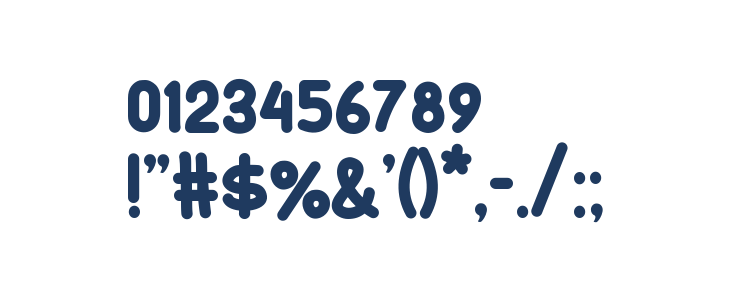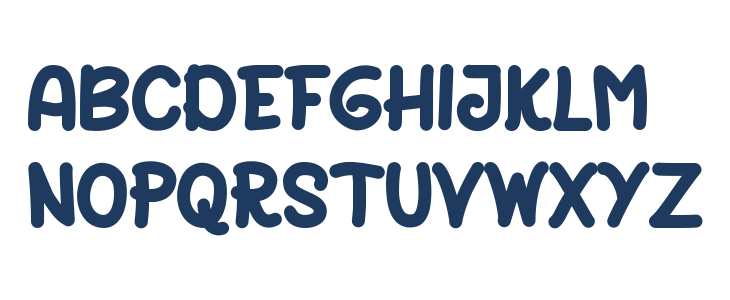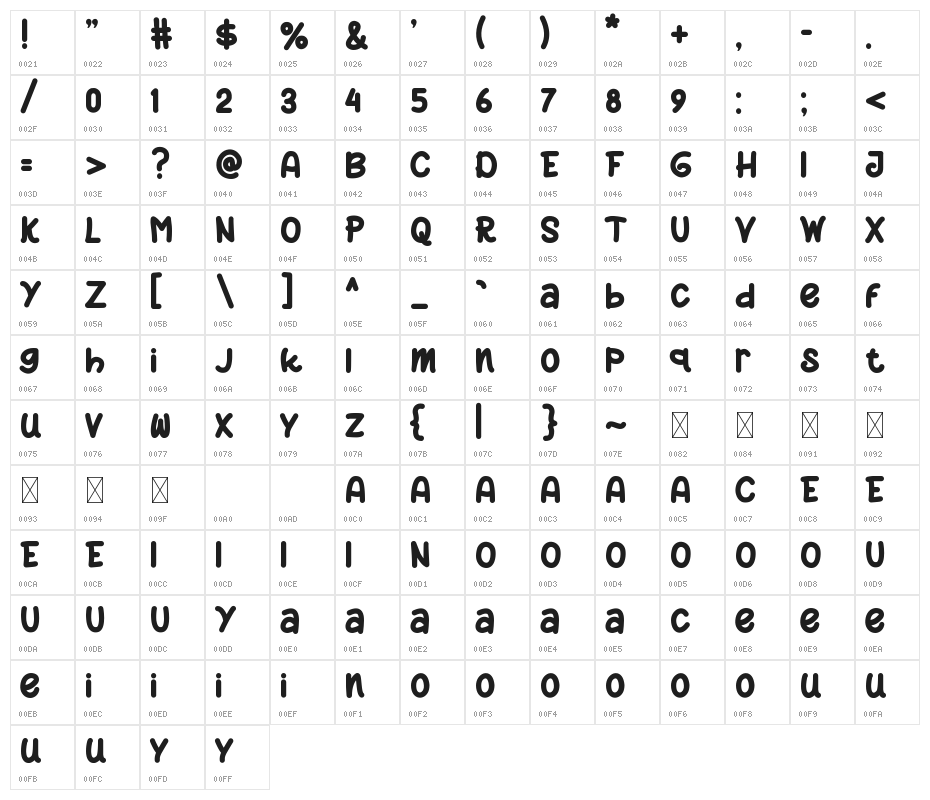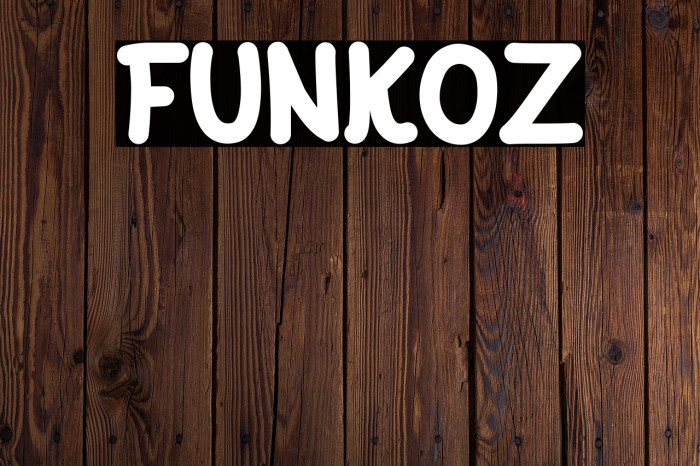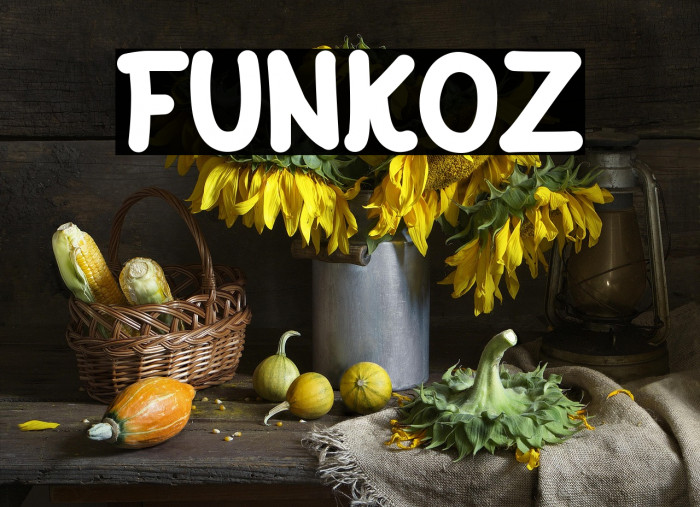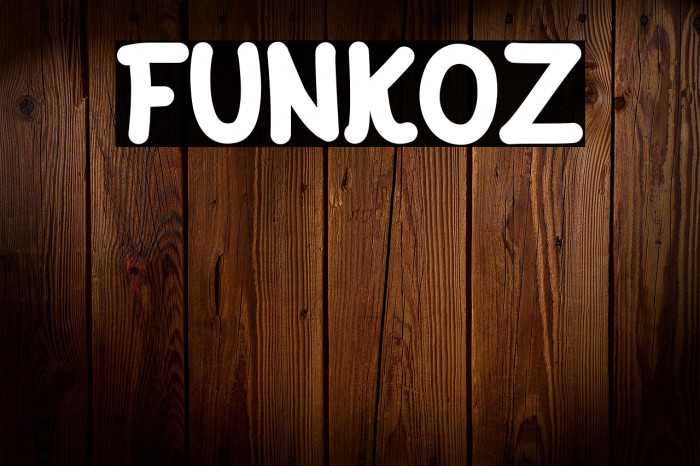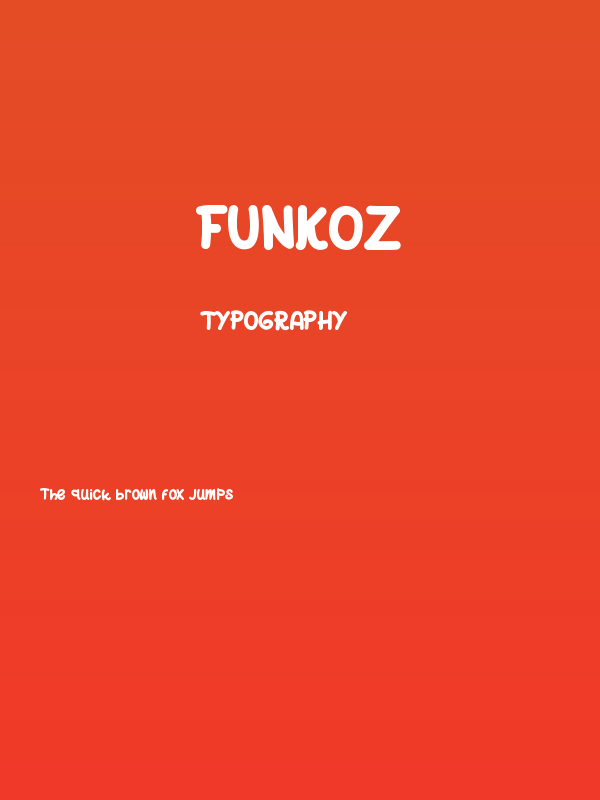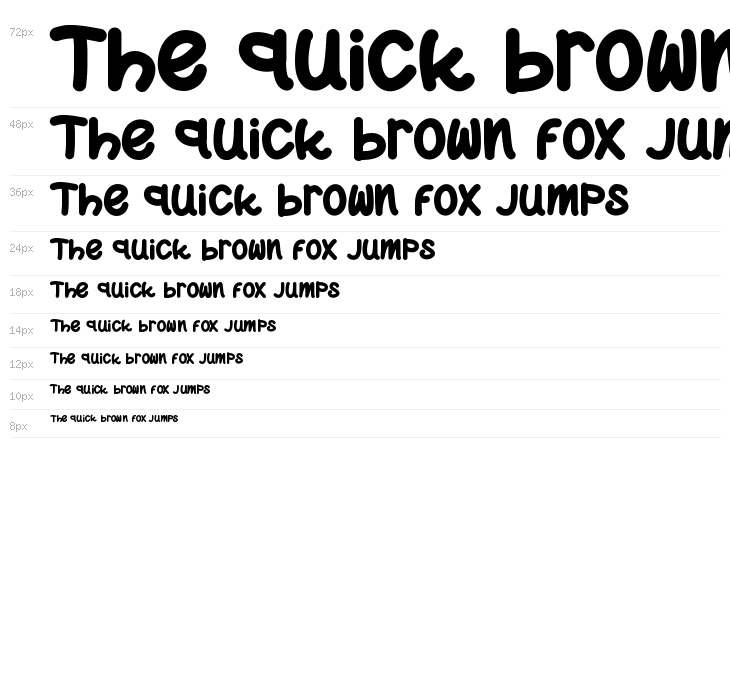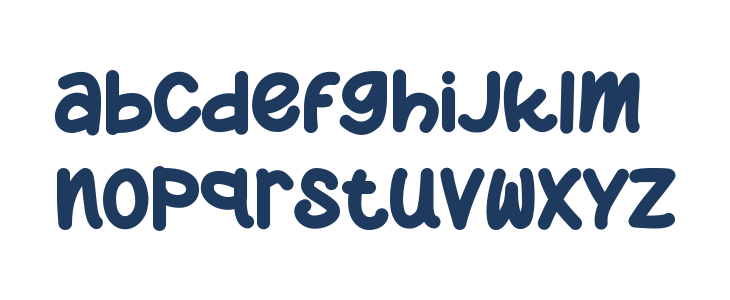
FUNKOZ Font
FUNKOZ Description
A bold, rounded, playful sans-serif font with smooth curves and a hand-drawn feel. The characters have consistent stroke thickness and a friendly, informal appearance.
| Overall Style | Playful, Casual, Friendly |
| Use Case | Headlines, Logos, Packaging, Children's content |
| Proposed Projects | Children's books, toy packaging, casual branding, posters, and playful digital content. |